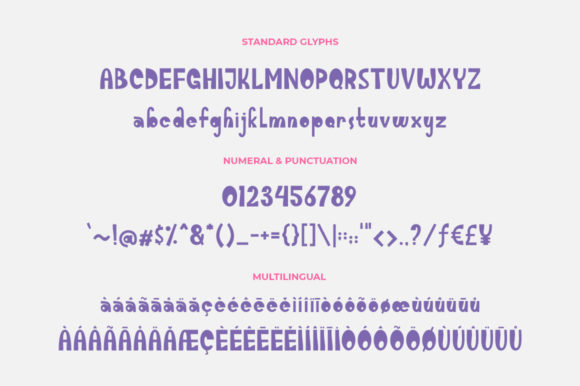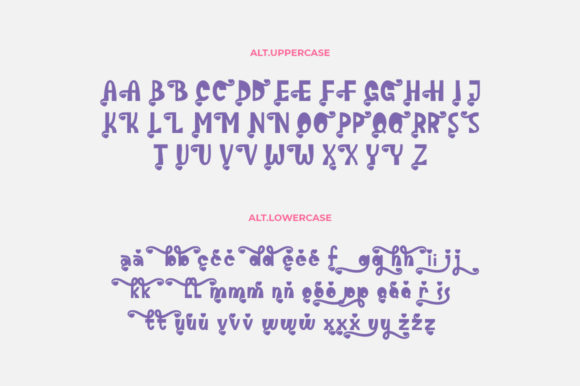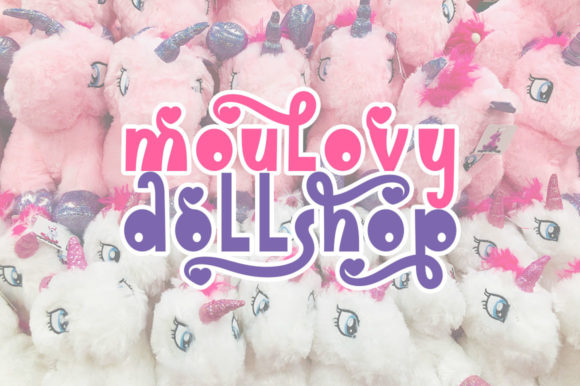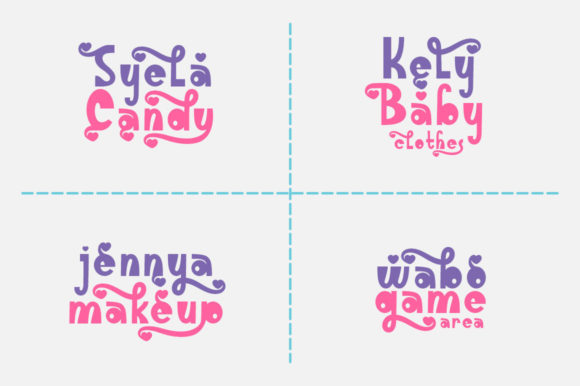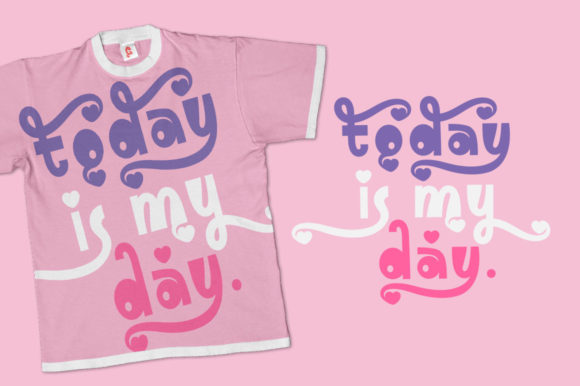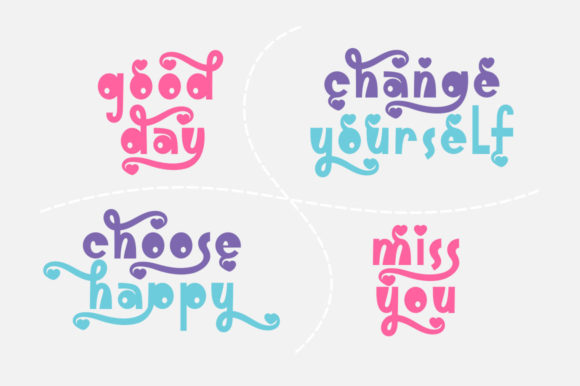
Introducing Call Me Baby Font: The Sweet and Quirky Display Font You Need
Are you tired of using the same old fonts in your design projects? Do you want to add a touch of sweetness and quirkiness to your creations? Look no further than Call Me Baby Font, a unique display font that’s sure to capture attention. In this article, we’ll dive into the features and benefits of Call Me Baby Font, and explore how it can elevate your designs to the next level.
What is Call Me Baby Font?
Call Me Baby Font is a sweet, quirky, and unique display font that’s perfect for designers and crafters looking for a fresh and exciting way to express themselves. This font is not just any ordinary font – it’s PUA encoded, which means you can access all of the glyphs and swashes with ease. Whether you’re creating a logo, social media graphics, or a craft project, Call Me Baby Font is the perfect choice.
Key Features of Call Me Baby Font
• PUA Encoding: Call Me Baby Font is PUA encoded, making it easy to access all of the glyphs and swashes. This means you can create beautiful and unique designs without any hassle.
• Unique and Quirky Design: This font has a sweet and quirky design that’s sure to capture attention. Its unique style makes it perfect for creating eye-catching headlines, titles, and graphics.
• Display Font: Call Me Baby Font is a display font, making it perfect for large-scale designs such as posters, banners, and social media graphics.
Benefits of Using Call Me Baby Font
So, why should you use Call Me Baby Font in your design projects? Here are just a few benefits:
• Adds a Touch of Personality: Call Me Baby Font adds a touch of personality to your designs, making them stand out from the crowd.
• Perfect for Creative Projects: This font is perfect for creative projects such as logos, social media graphics, and craft projects.
• Easy to Read: Despite its quirky design, Call Me Baby Font is easy to read, making it perfect for headlines and titles.
• Versatile: This font can be used in a variety of design projects, from digital to print.
Tips and Tricks for Using Call Me Baby Font
Here are some tips and tricks for using Call Me Baby Font:
• Use it for Headlines and Titles: Use Call Me Baby Font for headlines and titles to add a touch of personality to your designs.
• Experiment with Colors: Experiment with different colors to find the perfect combination for your design.
• Pair it with Other Fonts: Pair Call Me Baby Font with other fonts to create a unique and interesting design.
• Use it for Digital and Print Designs: Use Call Me Baby Font for both digital and print designs, from social media graphics to posters and flyers.